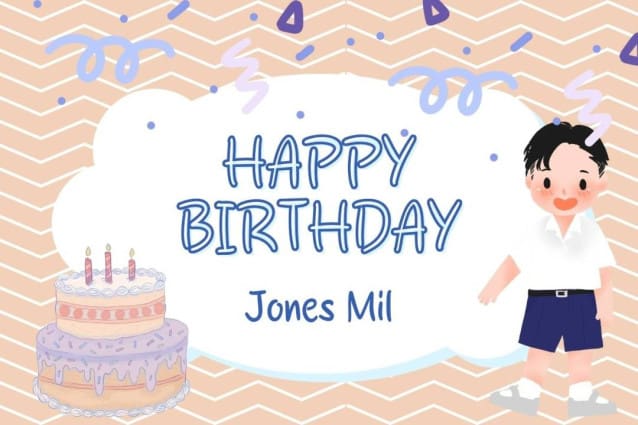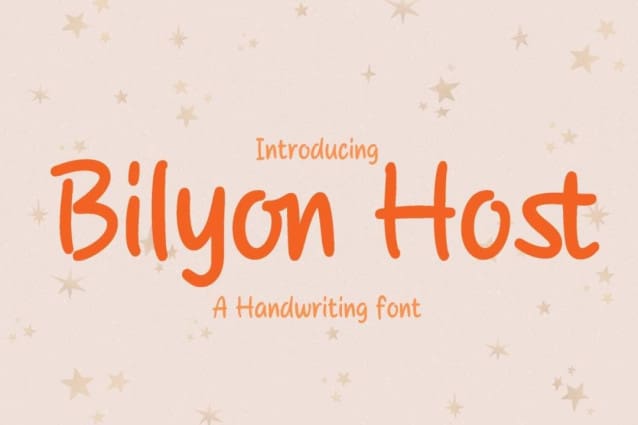
Bilyon Host Font
Bilyon Host Font a sweet and friendly handwritten font. Cute and fun, this font is ideal for writing wedding invitations, cards, or any other design that might need a fun touch!